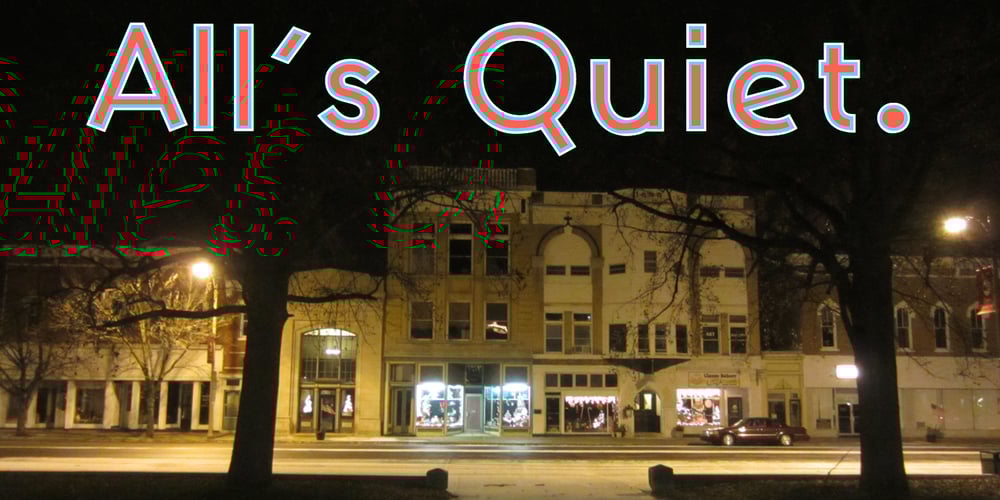
AndrewAndyCollege
AndrewAndyCollege font
AndrewAndyCollege Font Family was designed by Robert Schenk and published by Ingrimayne Type. AndrewAndyCollege contains 3 styles and family package options. AndrewAndyCollege is an outlined font derived from the Ingrimayne font AndrewAndreas, a san-serif face. In 2018 the inside and the middle ring were separated out and made independent fonts. They can be used alone, or layered with the original to produce letters with two or three colors.